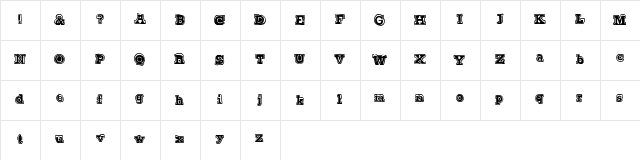
ZeroCollege Regular
| Foundry | Xerographer Fonts |
| Designer | Xerographer Fonts Max Infeld |
Design Context for ZeroCollege Typeface
ZeroCollege has the bold swagger of sports branding: strong, assertive letterforms designed to dominate headlines and jerseys alike.
Built for sports team identities, athletic apparel, event posters, and high-energy promotional material.
Pro Tip: ZeroCollege thrives on contrast — try it large, bold, and tight against a clean background for maximum visual impact.